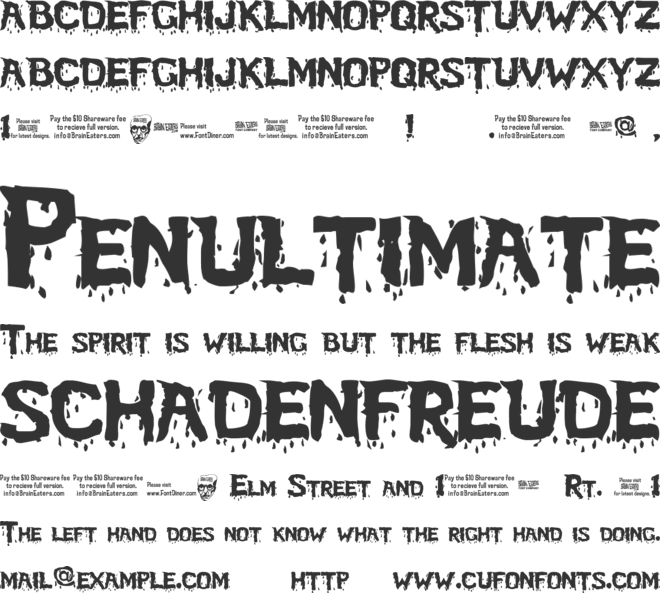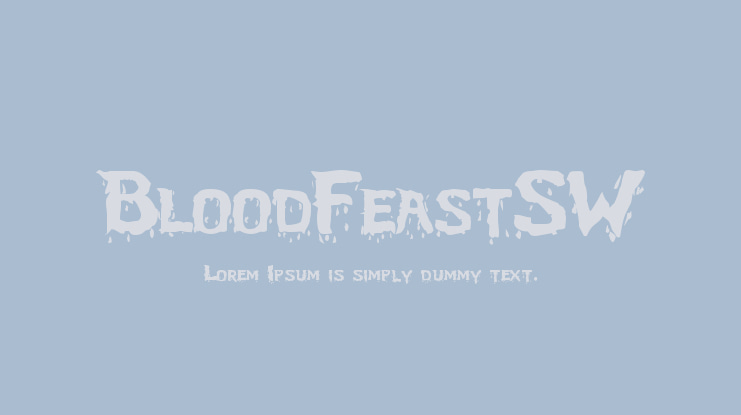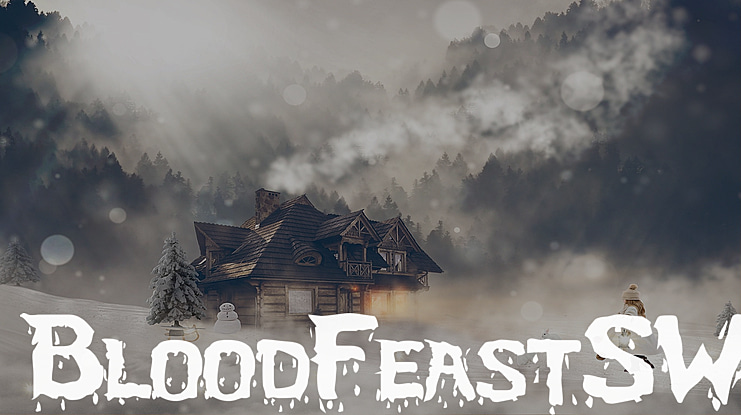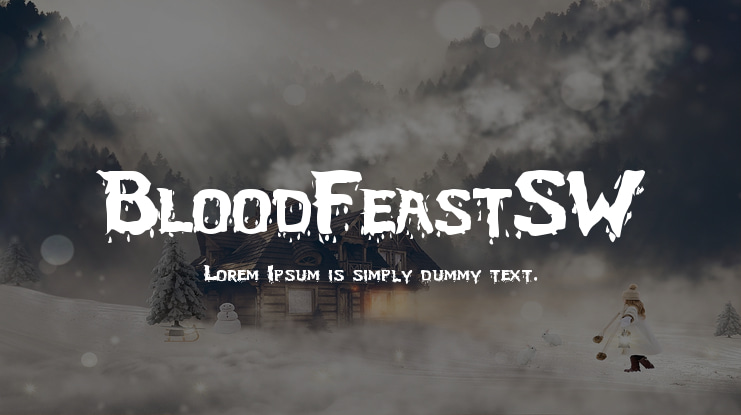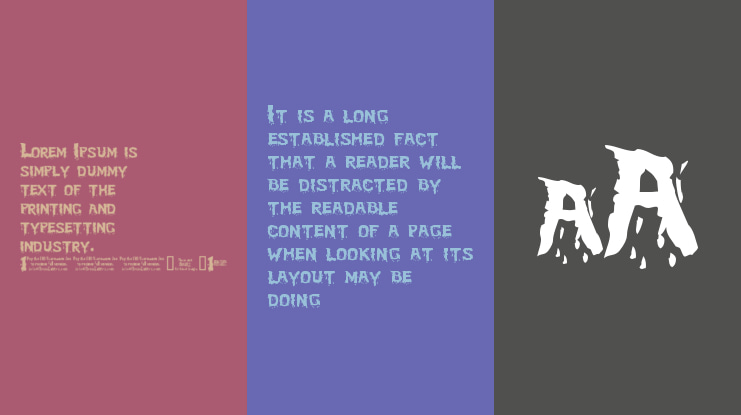
BloodFeastSW Font
This font is from Brain Eaters Font Co. Fonts based on B-Movies, Horror, Sci-Fi, Exploitation and other trash. This font is loosely inspired from a low budget gore film from the 60Ãs. This font grew from a nice bloody font to a blocky, sloppy, hideous mess. Hope you like it.